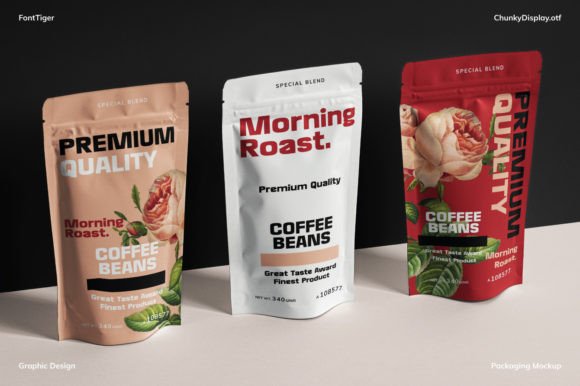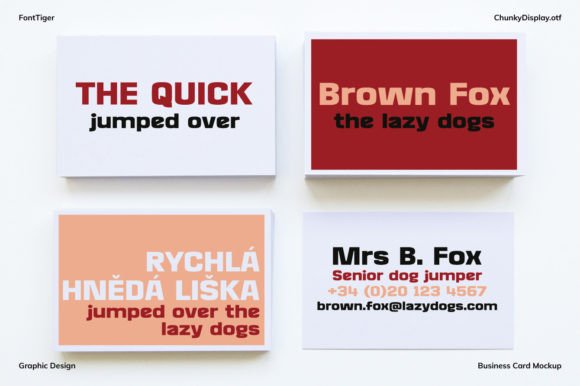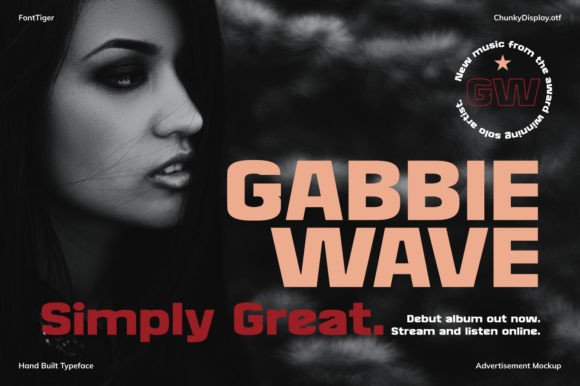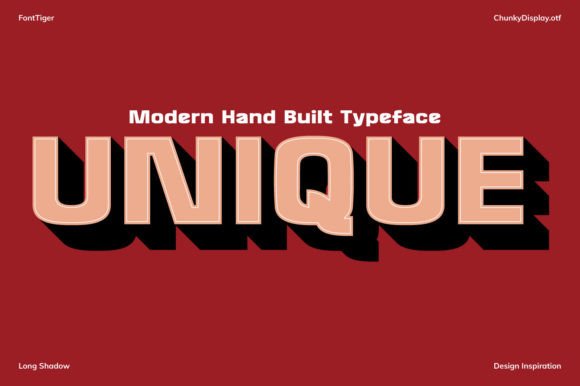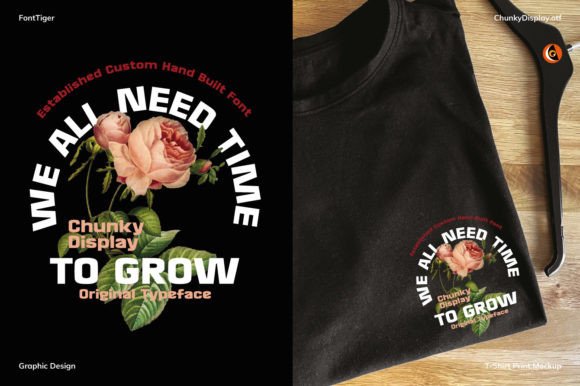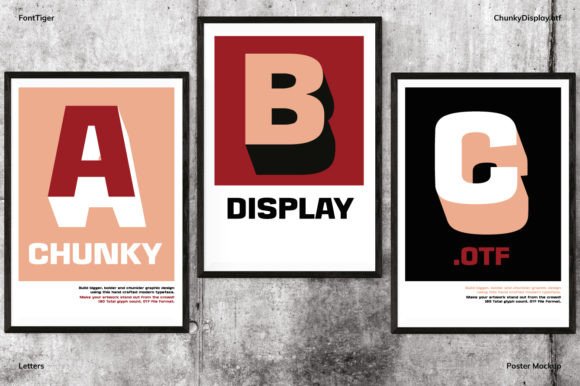
Introducing Chunky Display Font: The Ultimate Bold Statement
In a world where typography plays a crucial role in making a lasting impression, a well-crafted font can make all the difference. For designers and crafters looking to add a bold and eye-catching touch to their projects, Chunky Display Font is here to revolutionize the way you approach typography. This font is built bigger, bolder, and chunkier using a hand-crafted modern typeface, designed to help you stand out from the crowd and make a statement.
The Power of Chunky Display Font
Chunky Display Font is not just another font; it’s a game-changer. Its unique, hand-crafted design ensures that your text is not only readable but also visually striking. The chunky, bold letters are perfect for headlines, titles, and any other text that needs to grab attention. Whether you’re working on a branding project, a website, or a craft, this font is versatile enough to be used absolutely anywhere.
Key Features of Chunky Display Font
- Hand-crafted modern typeface: Each letter is carefully designed to ensure a unique and authentic look.
- Chunky and bold: The font’s chunky design makes it perfect for creating eye-catching headlines and titles.
- Versatile: Use it for a wide range of projects, from digital designs to print materials.
- Easy to read: Despite its bold design, the font remains highly readable, even at smaller sizes.
Why Choose Chunky Display Font?
With so many fonts available, why choose Chunky Display Font? The answer lies in its ability to be original and authentic. In a sea of generic, overused fonts, Chunky Display Font offers a refreshing change. Its unique design ensures that your work stands out, making it perfect for designers and crafters who want to make a lasting impression.
Use Cases for Chunky Display Font
The versatility of Chunky Display Font means it can be used in a variety of contexts. Here are a few ideas to get you started:
- Branding: Use Chunky Display Font as a logo or for packaging design to create a bold and memorable brand identity.
- Web Design: Add a statement headline or title to your website with Chunky Display Font, guaranteed to grab visitors’ attention.
- Crafting: From handmade cards to DIY projects, Chunky Display Font can add a personal touch to your crafts.
- Graphic Design: Whether you’re working on a poster, flyer, or brochure, this font is sure to make your text pop.
Tips for Using Chunky Display Font
To get the most out of Chunky Display Font, here are a few tips:
- Use it sparingly: While the font is eye-catching, using it for large blocks of text can be overwhelming. Stick to headlines, titles, and key messages.
- Experiment with colors: The bold design of Chunky Display Font makes it perfect for experimenting with different colors and gradients.
- Pair it with a simple font: For body text, pair Chunky Display Font with a simple, easy-to-read font to create visual contrast.
Chunky Display Font is more than just a font; it’s a tool for designers and crafters to express themselves boldly and creatively. Its hand-crafted modern typeface, chunky design, and versatility make it the perfect choice for anyone looking to make a statement. So why settle for ordinary when you can be extraordinary? Choose Chunky Display Font for your next project and watch your text come alive.